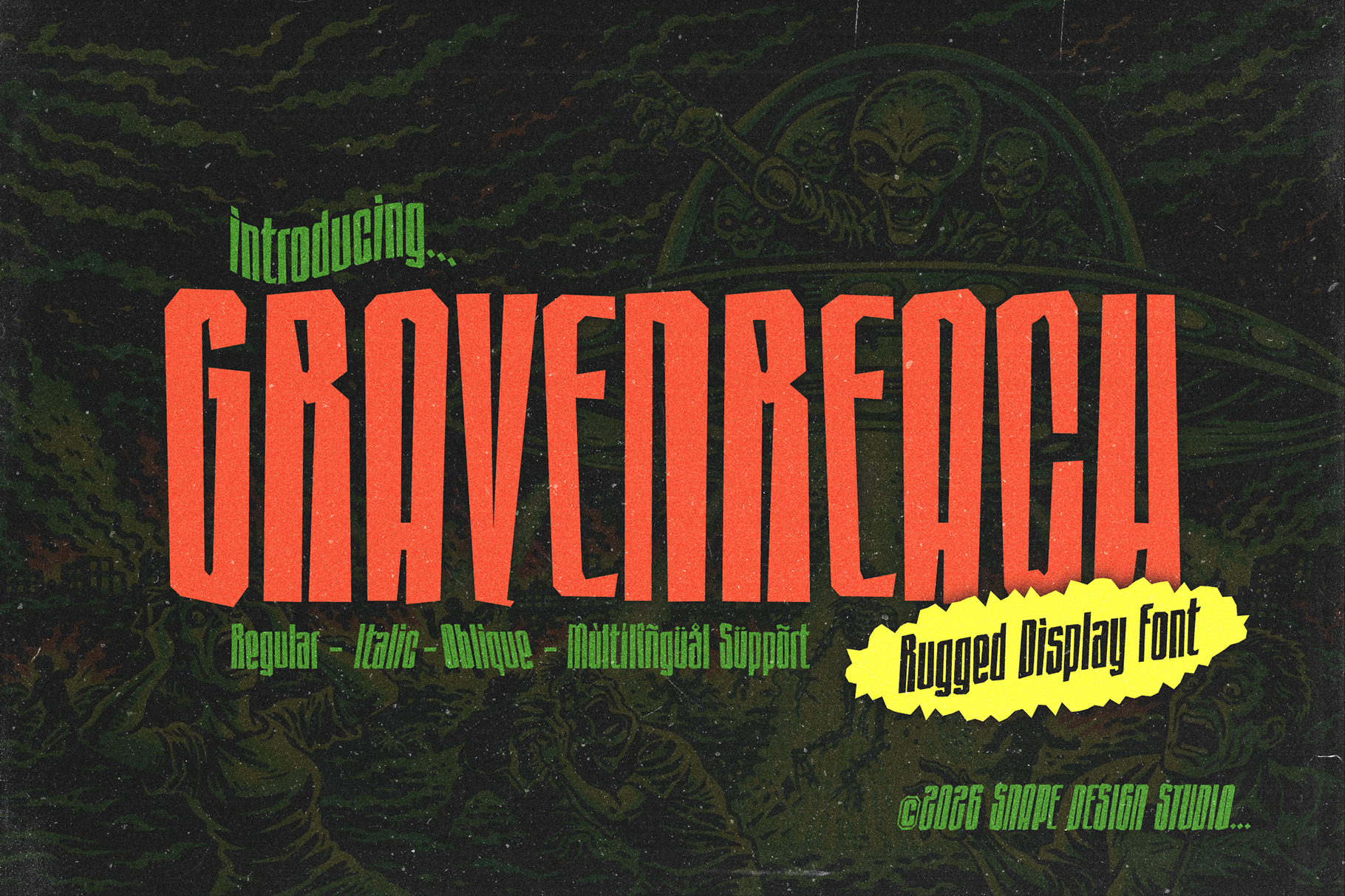
Gravenreach - Rugged Display Font
Gravenreach is a bold brutalist display font with a chiseled, stone-carved aesthetic and strong condensed proportions. Designed to command attention, this rugged typeface features sharp edges, irregular cuts, and a handcrafted feel that delivers a powerful and dramatic visual impact.
Perfect for logo design, poster headlines, branding projects, album covers, gaming titles, merchandise, and dark-themed graphics, Gravenreach brings a raw, masculine, and monumental character to any layout.
If you are looking for a brutalist display font, chiseled typeface, or strong condensed headline font with an intense and distinctive style, Gravenreach is built to stand tall and dominate the stage.